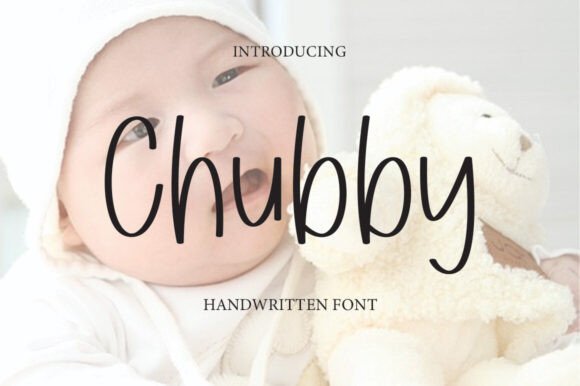
Unlocking the Whimsy of Chubby Font
Remember that moment when a single font choice transformed your design from ordinary to extraordinary? For designers, it’s a feeling of pure joy and satisfaction. It’s the moment when all the elements come together, and your creation takes on a life of its own. This time, let’s talk about the Chubby Font, a delightful addition to any designer’s toolkit.
Chubby Font is a charming, cursive handwritten typeface that brings a touch of warmth and romance to your designs. Its sweetly rounded strokes and playful appeal make it perfect for adding a sprinkle of joy to your creative endeavors. Whether you’re designing a wedding invitation, a children’s book, or a marketing campaign, Chubby Font is sure to breathe life into your work.
Chubby Font Key Features
- Font Family: Chubby Font is a sans-serif font family, offering a unique blend of modern and playful characteristics.
- Size: Chubby Font comes in multiple weights, ranging from Thin (100) to Black (900), providing a wide range of design possibilities.
- Resolution: Designed for high-resolution displays, Chubby Font supports resolutions up to 300 DPI, making it ideal for digital applications.
- Unique Characteristics: Chubby Font’s distinctive rounded edges and subtle irregularities give it a friendly, approachable feel, perfect for branding and typography projects.
Designer Review: Chubby Font
Overall, I’d say Chubby Font is an interesting addition to the world of typography. It’s certainly unique and could add some visual interest to designs where you want to create a friendly or approachable vibe.
What Works Well: ✨
- Chubby Font has a lot of personality and can add a touch of whimsy to your designs.
- The font is highly customizable, which is great for designers who want to fine-tune the look and feel to suit their project.
- The bold and italic weights are particularly well-done, adding depth and variety to the font.
- The regular weight can feel a bit too rounded and soft, which may not be suitable for all projects.
- The font may not be the best choice for body text, as it can be a bit too playful and distracting.
- Some users may find the font’s character set to be limited, which could be a problem for projects that require a wide range of special characters.
In conclusion, while Chubby Font has its limitations, it’s a fun and quirky font that can add a lot of personality to your designs. Just be sure to use it thoughtfully and in the right context.
For the best results, use Chubby Font for headings and titles to add a playful touch to your designs.
Chubby Font works well for creating playful and whimsical designs, making it perfect for children’s book illustrations or advertising materials.
Use Chubby Font to add a touch of personality to your presentations and documents.
Chubby Font is perfect for:
- Advertising materials
- Playful headings and titles
- Whimsical designs
Remember to use Chubby Font in moderation to avoid overwhelming your design.
Alternatives to “Chubby Font” for Designers
Great Vibes is a playful, cursive font perfect for adding a touch of whimsy to designs. It’s ideal for headings, titles, and short paragraphs where a casual, handwritten feel is desired.
Compared to Chubby Font, Great Vibes is more elegant and refined, with a more even letter spacing. While Chubby Font has a chunkier, more rustic feel, Great Vibes is better suited for modern, trendy designs.
Pacifico is a beautiful, elegant script font that’s perfect for luxury brands, weddings, and high-end designs. It’s ideal for headings, titles, and short paragraphs where a sophisticated, refined feel is desired.
Compared to Chubby Font, Pacifico is more refined and polished, with a more subtle, elegant feel. While Chubby Font has a more playful, casual vibe, Pacifico is better suited for formal, high-end designs.